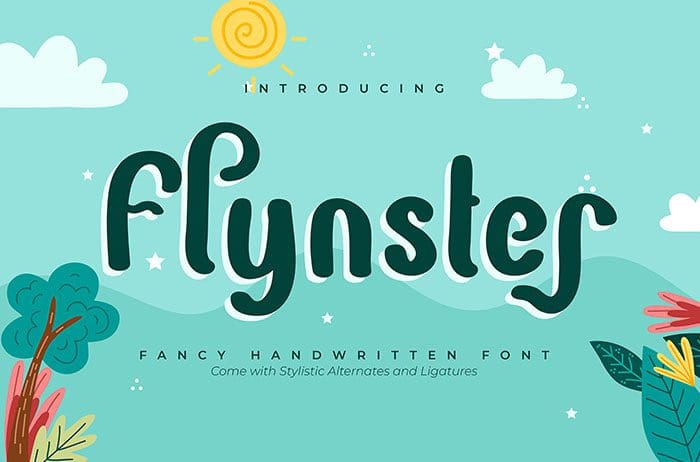
Flynster Handwritten Font
Flynster is a modern, stylish and brushed Handwritten Font. Due to its relaxed nature, it can be applied to a variety of designs. Thanks to Vunira Studio for sharing this font! Take a look at this portfolio for more of his stunning fonts.